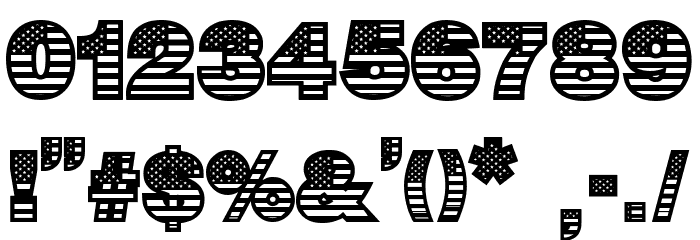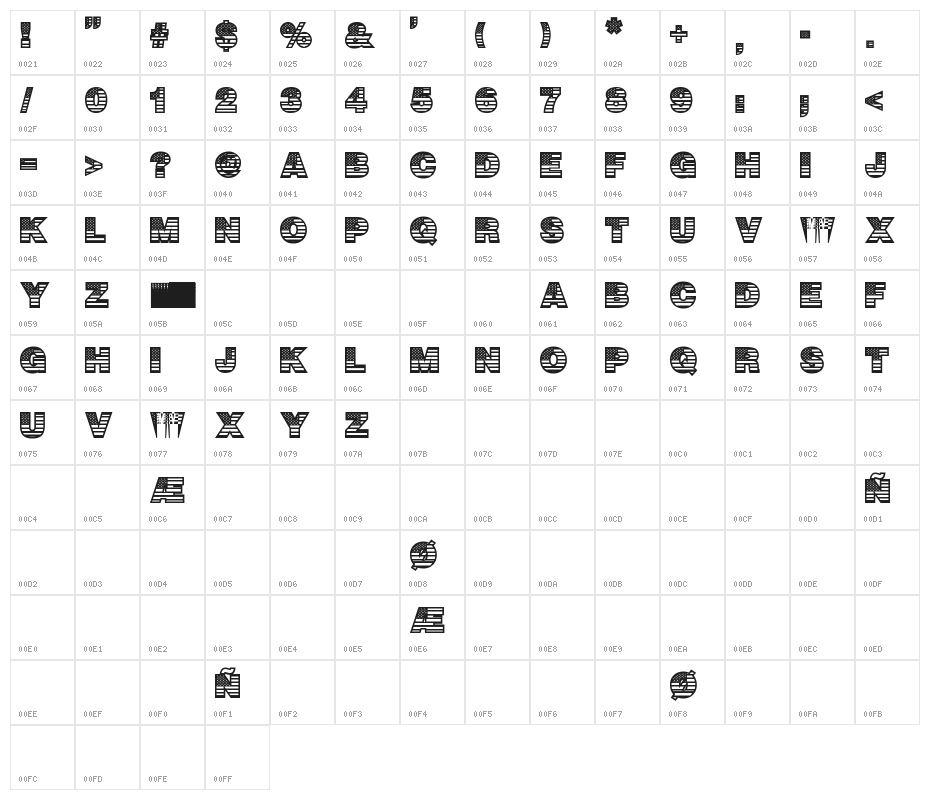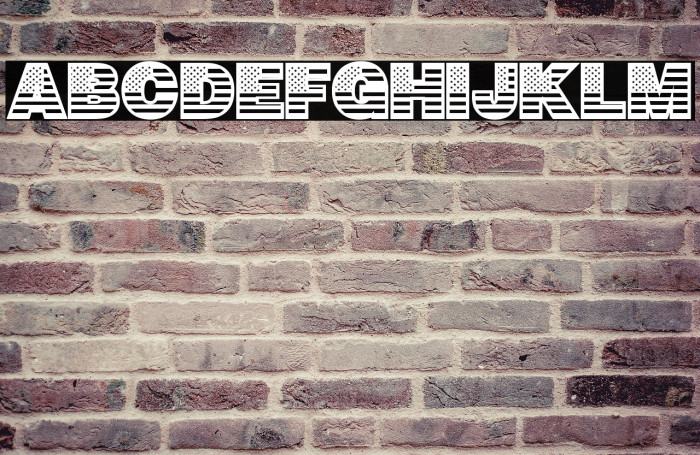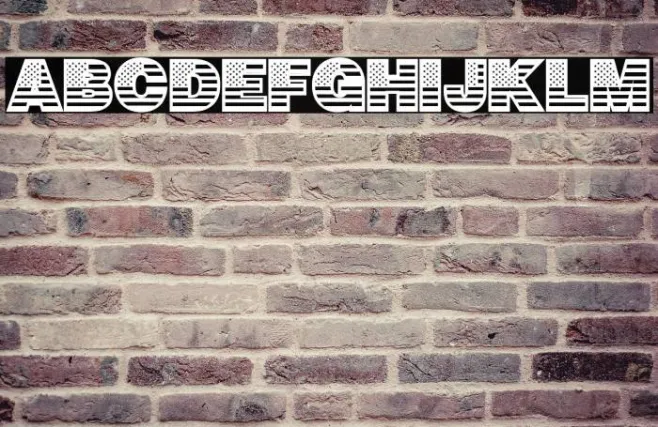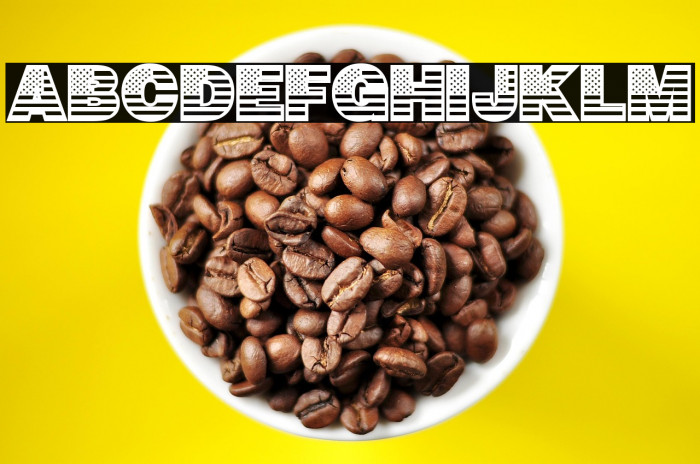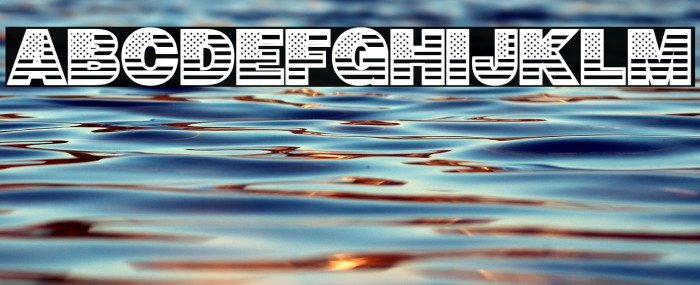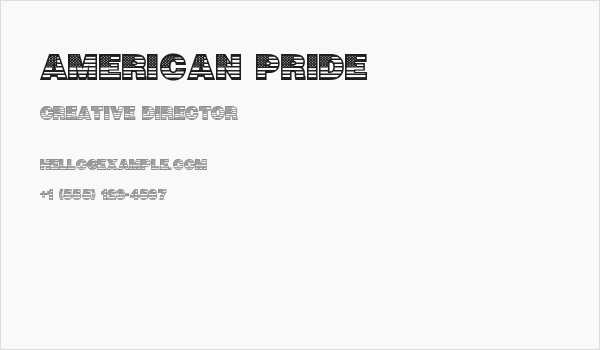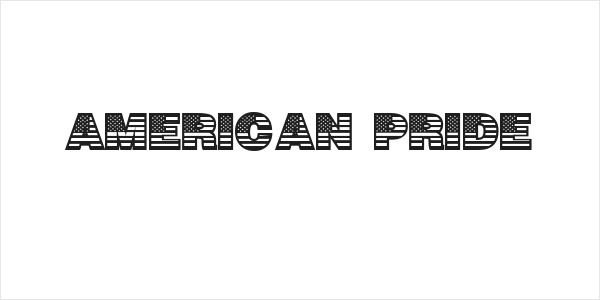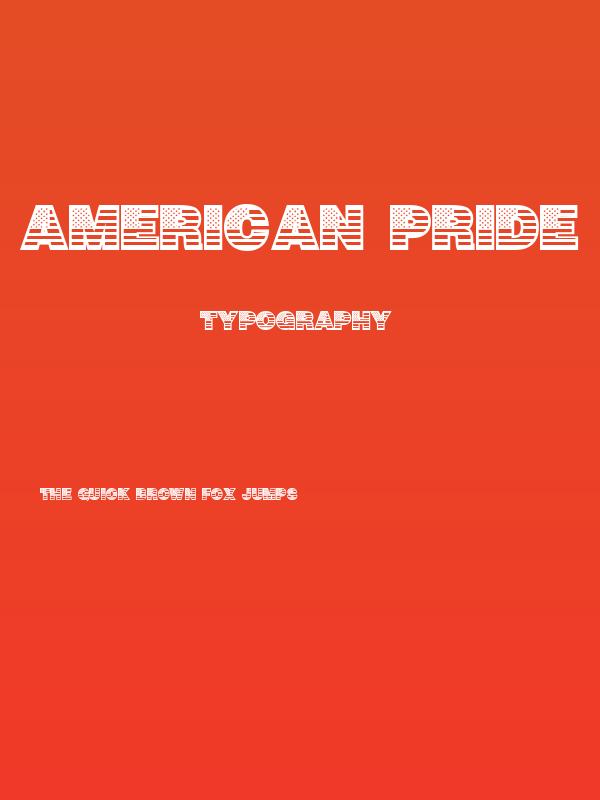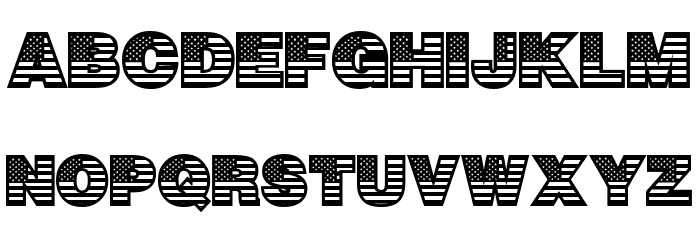
American Pride Font
American Pride Description
This font features a bold and decorative style, incorporating elements of the American flag within each character. The letters and numbers are filled with stars and stripes, creating a patriotic theme. The design is highly detailed, with each character showcasing a unique blend of patterns that mimic the iconic flag. The font is structured with a strong geometric form, providing a sense of stability and strength. The use of contrasting colors and patterns within the characters adds a dynamic and eye-catching effect, making it suitable for projects that require a bold statement. The overall appearance is both playful and robust, capturing the essence of American pride.
| Proposed Projects | Ideal for patriotic events, themed posters, merchandise, branding, and any design celebrating American culture. |